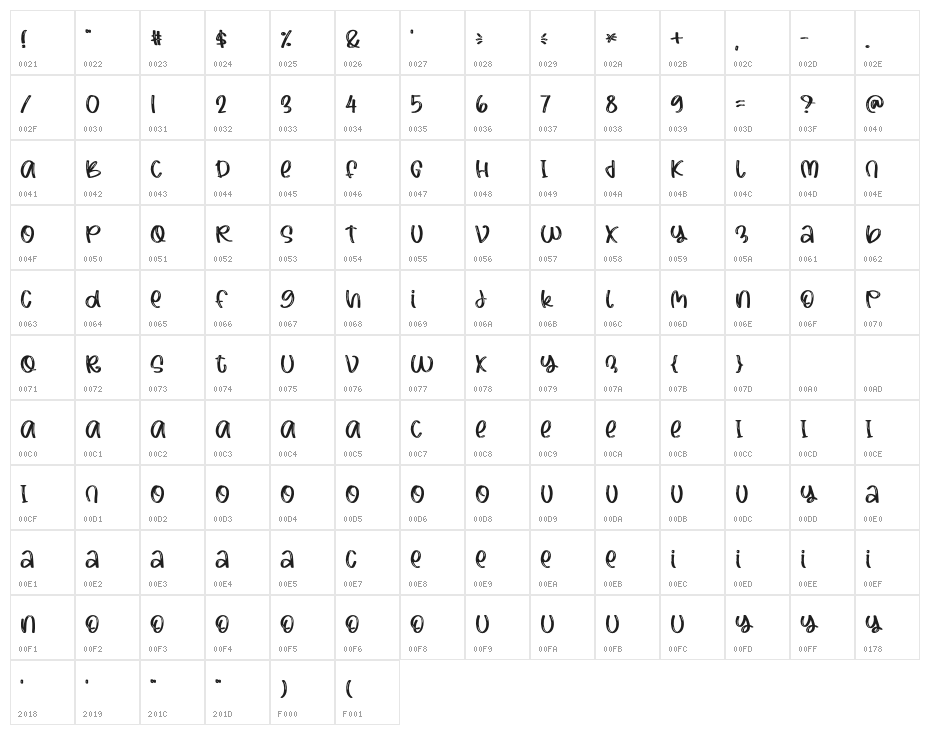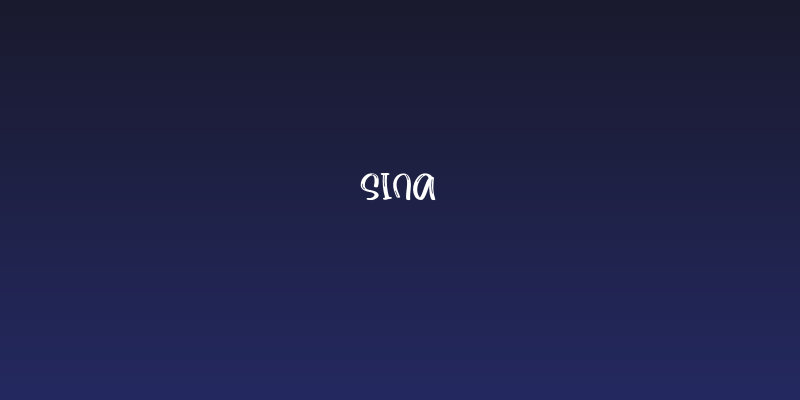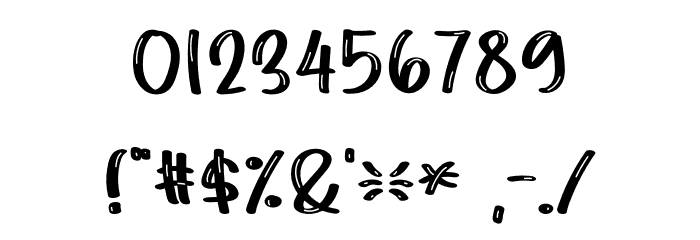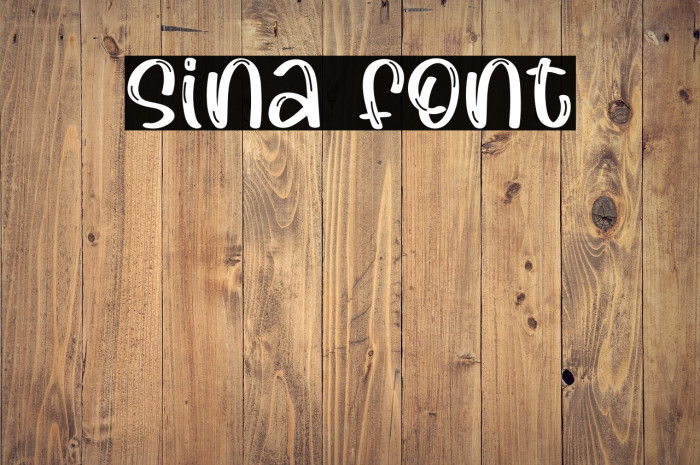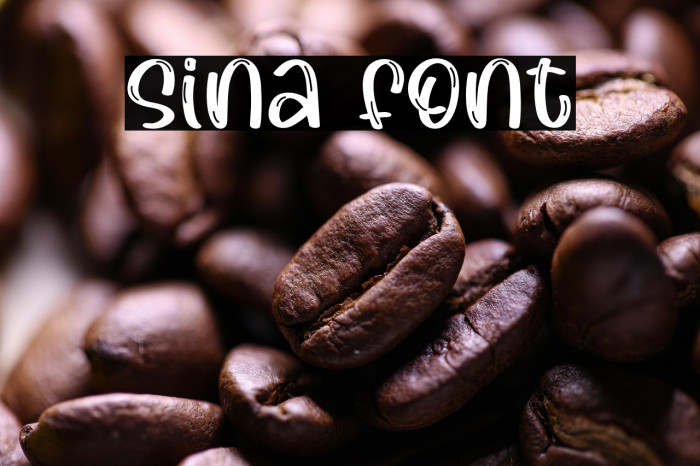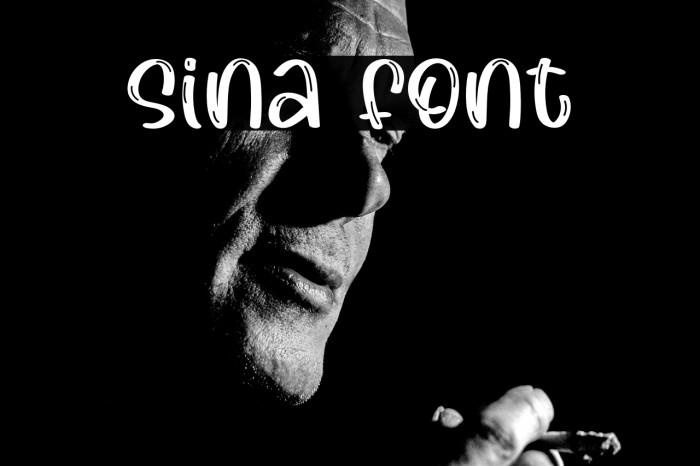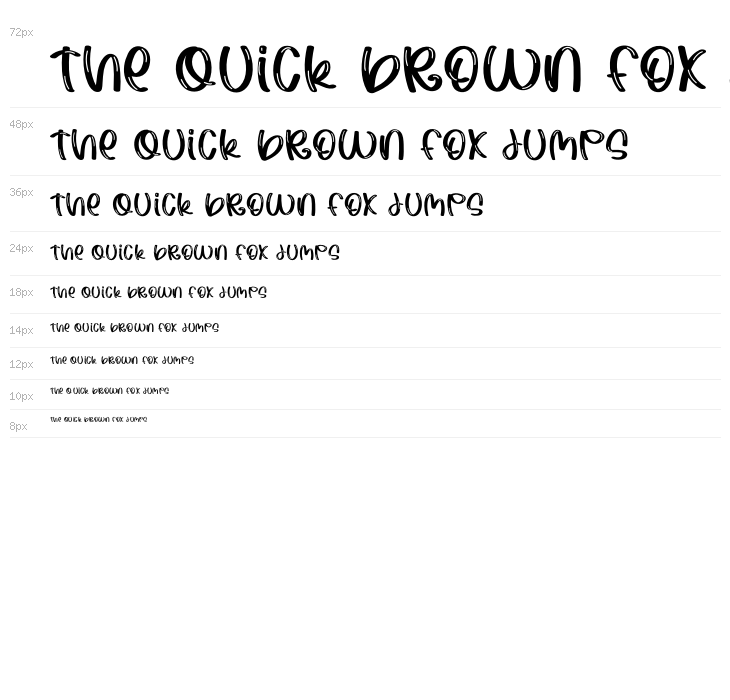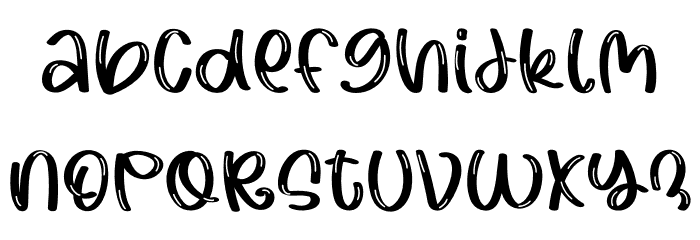
Sina Font
Sina Description
This font features a playful and energetic script style with bold, sweeping strokes that give it a lively and dynamic appearance. The characters are crafted with a hand-drawn aesthetic, showcasing a mix of thick and thin lines that create a sense of movement and fluidity. The uppercase and lowercase letters maintain a consistent style, with rounded edges and a slightly irregular baseline that enhances its casual and approachable feel. Numbers and special characters are designed to match the whimsical nature of the alphabet, making this font suitable for creative and informal projects.
| Proposed Projects | Ideal for greeting cards, playful branding, children's books, and creative social media graphics. |